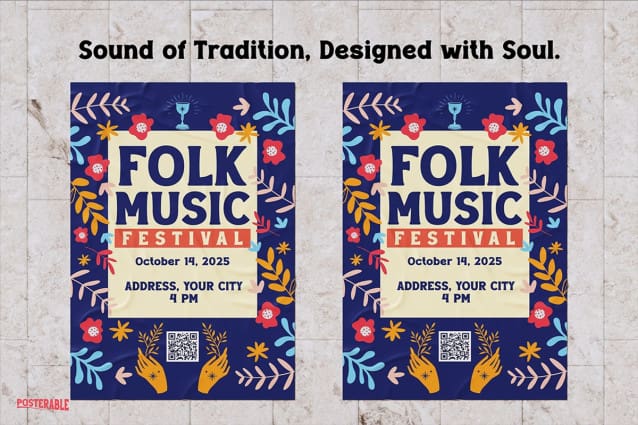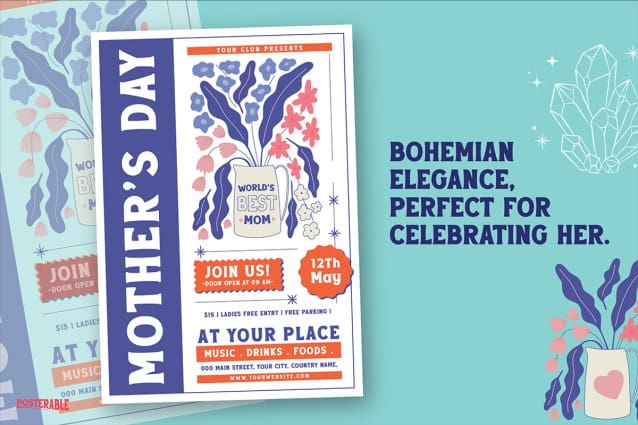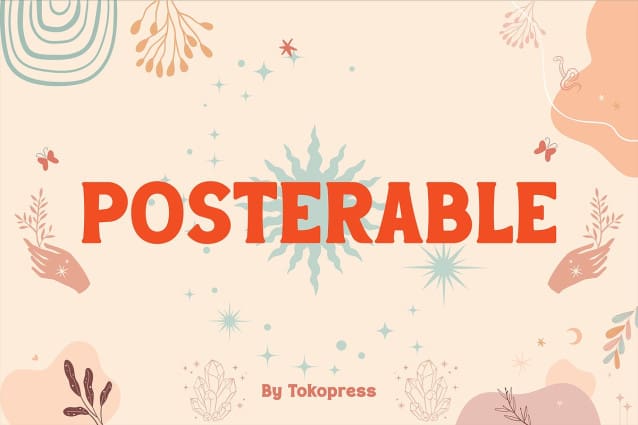
Posterable Font
Posterable Font, brings the beauty of natural and character-filled handwriting to your designs. With smooth strokes and a personal touch, this font adds warmth and authenticity to any creative project. Ideal for creating a relaxed and genuine feel, Posterable offers a friendly and approachable vibe that enhances your work. If you’re looking for a font that combines simplicity with lasting impact, Posterable Font is the perfect choice to showcase a personal touch in your designs.